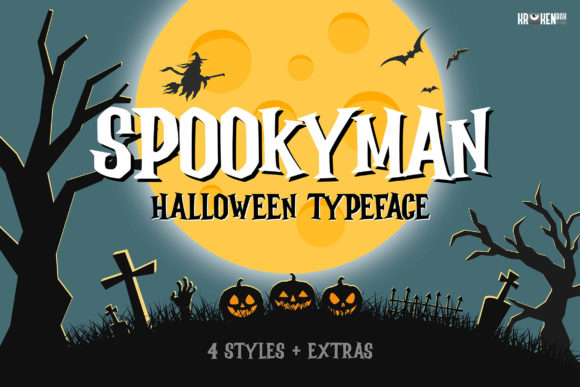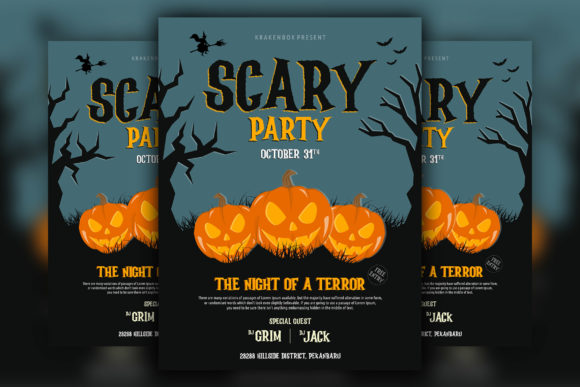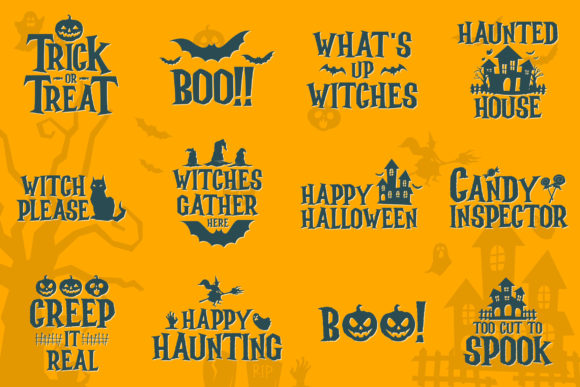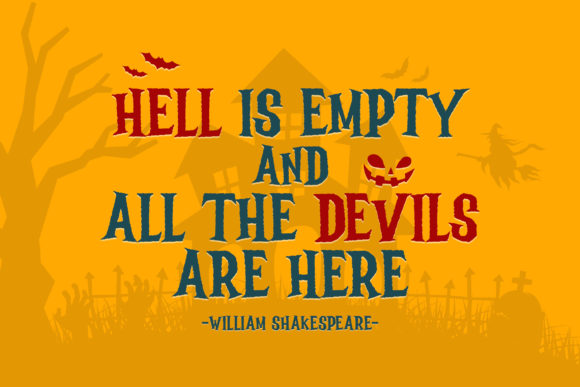
Spookyman – Halloween Typeface + Extras Font
About the Spookyman – Halloween Typeface + Extras Font
Make a bold statement with Spookyman – Halloween Typeface + Extras Font, a powerful and memorable font. Spookyman is a Halloween-themed display font that will make your designs look classic, mysterious, horror, and spooky. It is a great font for events, Halloween, fashion, apparel projects, signature, album covers, logos, branding, magazines, social media posts, advertisements, but it also works great for other projects. Add it to your fonts’ library, and it will enhance your creativity!
Spookyman – Halloween Typeface + Extras Font Usage Examples
Spookyman - Halloween Typeface + Extras Font Example